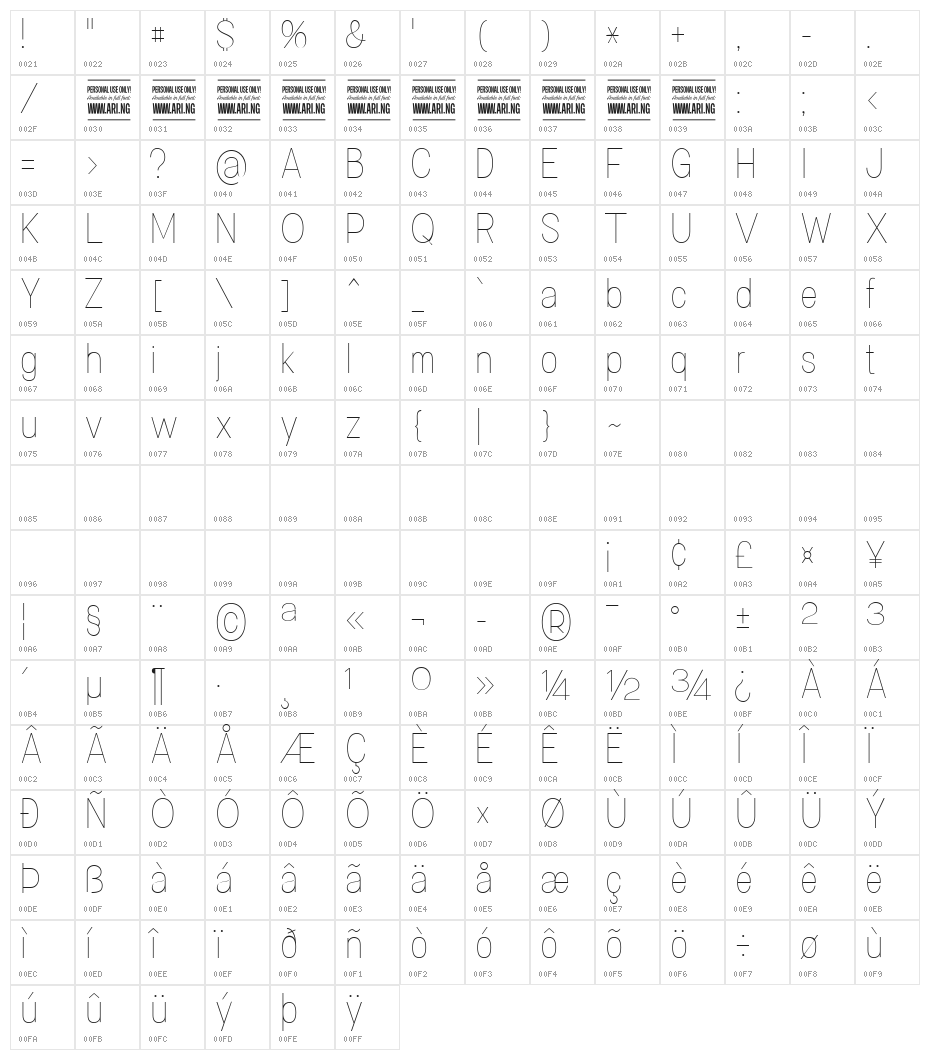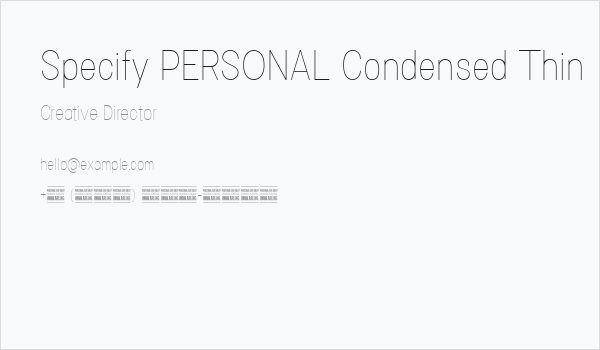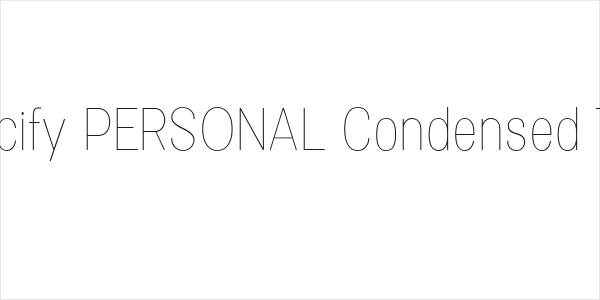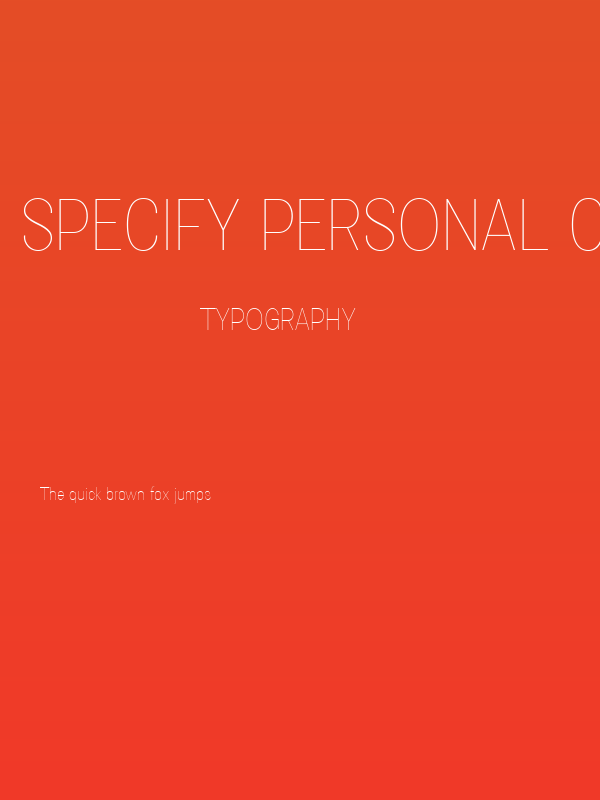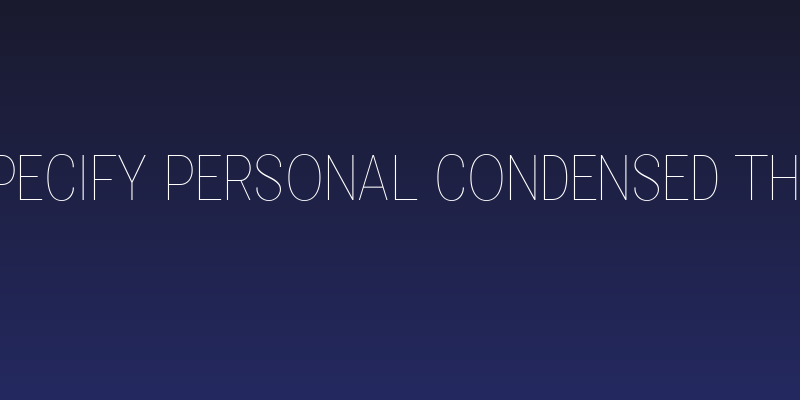
Specify PERSONAL Condensed Thin Font
Specify PERSONAL Condensed Thin Description
This font features a sleek and modern design with a condensed and thin appearance. The characters are elegantly elongated, providing a sophisticated and minimalistic look. The uppercase and lowercase letters maintain a consistent style, with clean lines and a uniform stroke width. The numerals and special characters complement the overall aesthetic, making it suitable for contemporary designs. The font's simplicity and clarity make it ideal for projects that require a refined and understated touch.
Proposed ProjectsIdeal for modern branding, minimalist posters, elegant invitations, and sleek website headers.